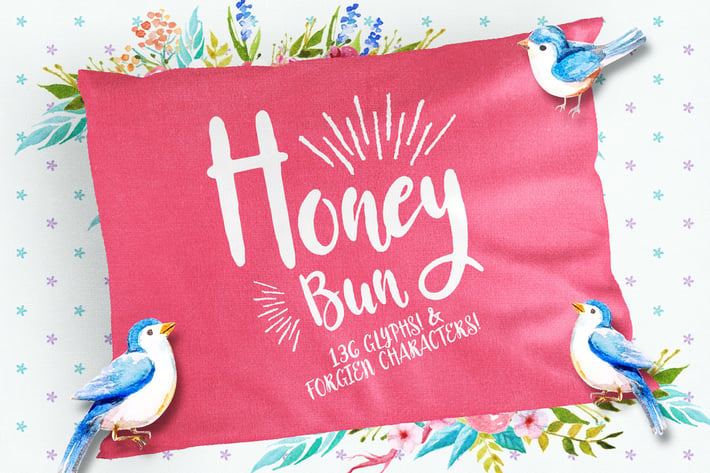
Honey Bun - Typeface
Introducing Honey Bun
Honey Bun is a playful, energetic typeface with oodles of character, perfect for decorative pieces of artwork or product design, It has Glyphs which are subtle yet bold, and intricate yet clear shapes to stand out at smaller sizes.
In total for Honey Bun there are 136 Glyphs, including Foreign Characters, therefore having multilingual support :)